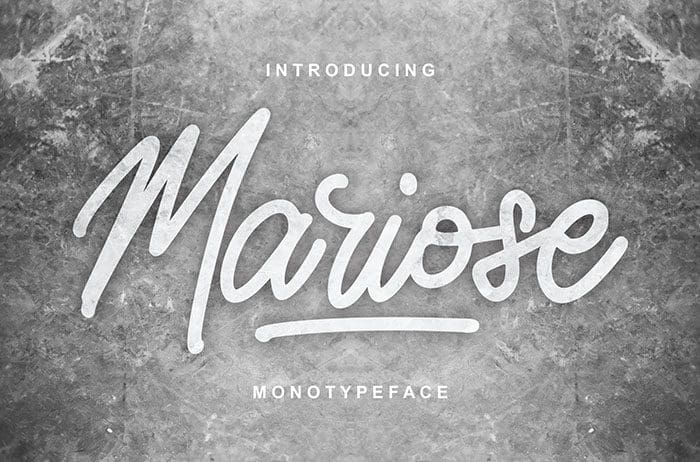
Mariose Script Font
Mariose script font carefully created with a touch of elegance. It maintains its classy calligraphic influences while feeling contemporary and fresh. Thanks to Vunira Studio for sharing this font! Take a look at this portfolio for more of his stunning fonts.